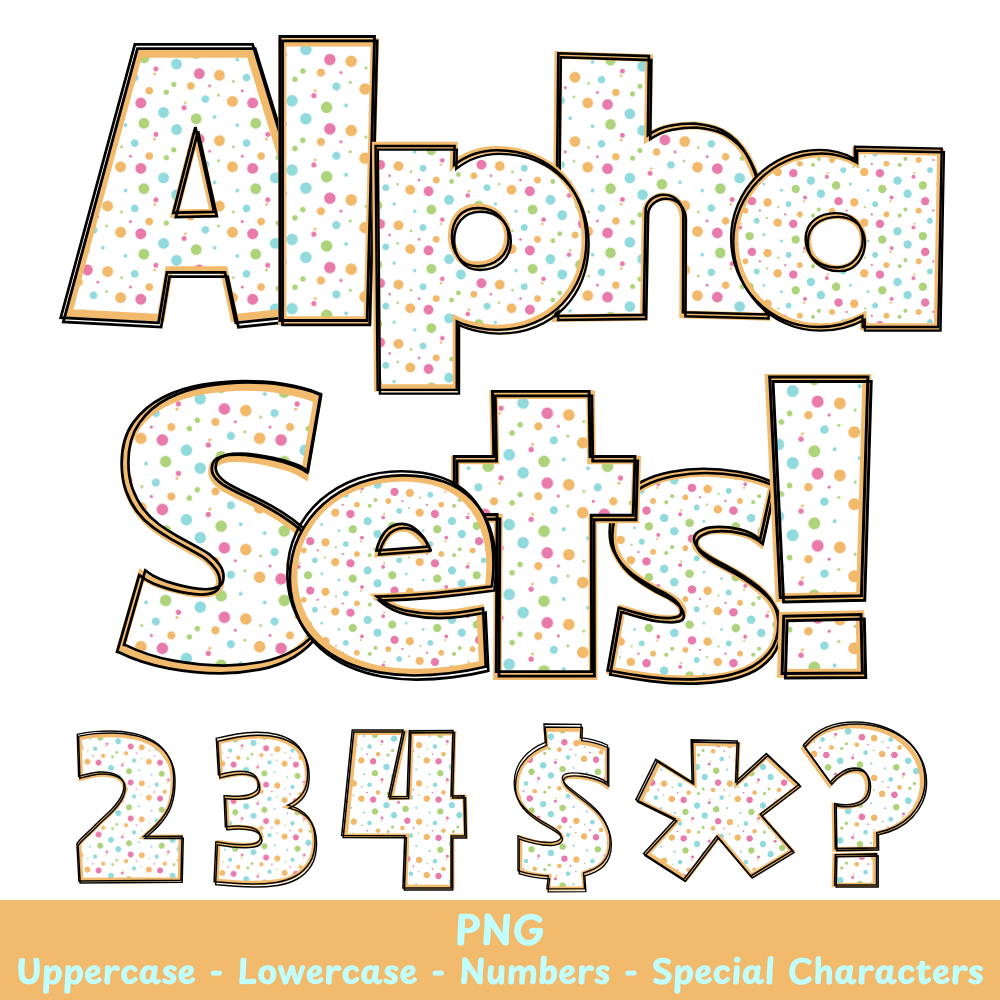
Gold Polka Dots PNG Font
Gold Polka Dots Alpha Set PNG Font Pack
Add a touch of elegance to your designs with our Gold Polka Dots PNG Font. Perfect for crafts and sublimation projects, this font boasts golden polka dots for a glamorous finish. Stand out from the crowd and elevate your designs with this versatile font.